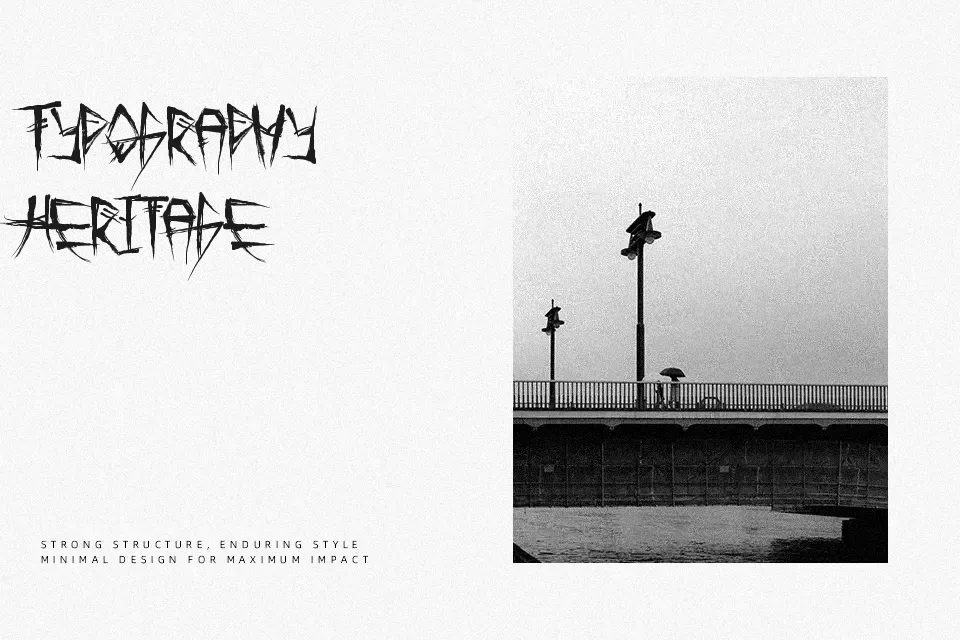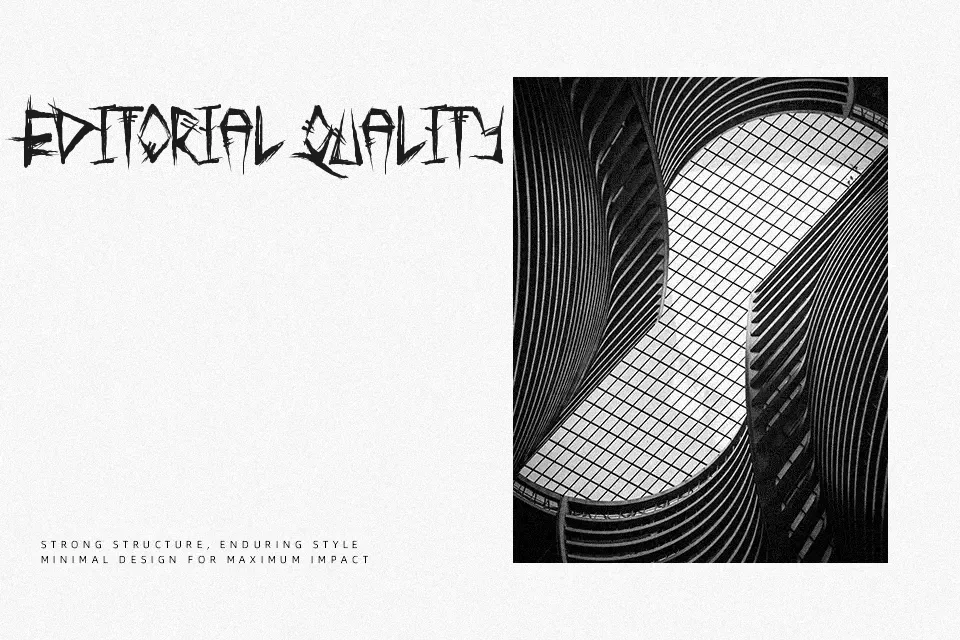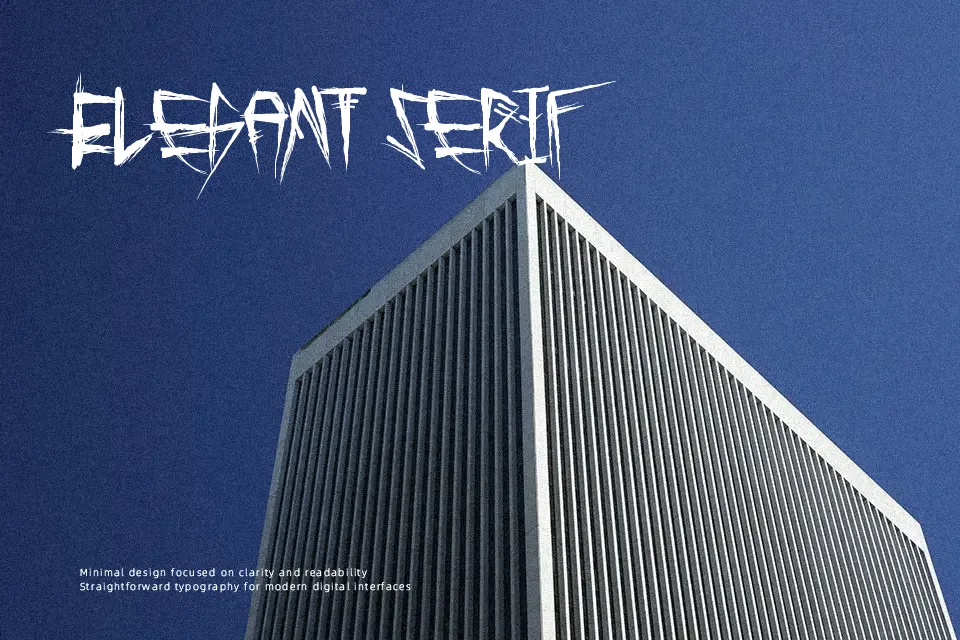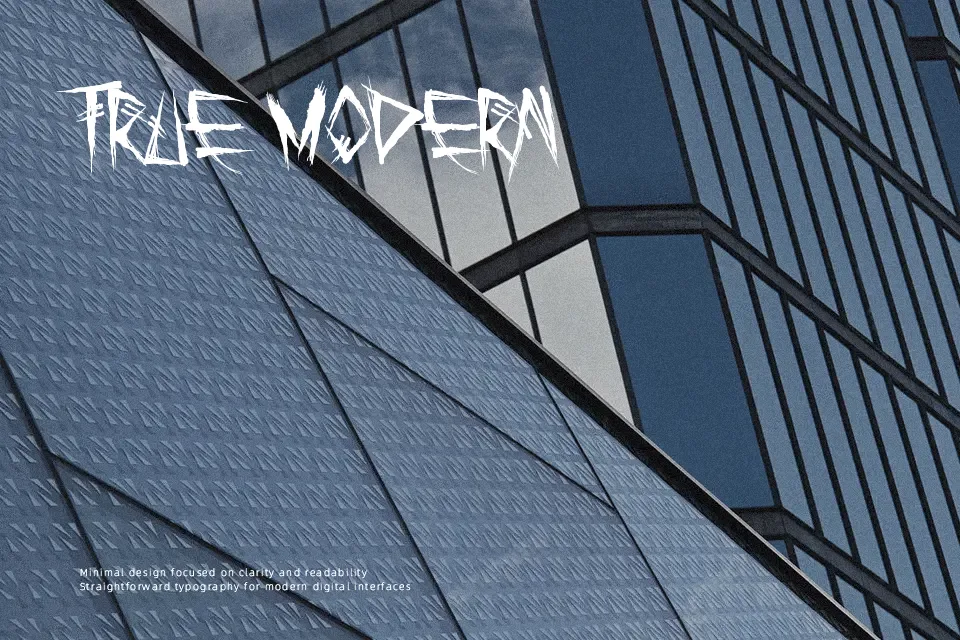
Tribal Threat Font
Tribal Threat Font commands immediate visual attention through heavily stylized glyphs shaped with barbed contours, razor-sharp terminals, and dense solid weights. The letterforms exhibit deliberate jagged silhouettes and tightly spaced construction, producing an intense rhythmic texture across uppercase sequences. While these exaggerated proportions maximize dramatic impact at large scale, the intricate outer spikes noticeably degrade readability when reduced. Consequently, this typeface performs best on horror film posters, aggressive apparel graphics, and music merchandise headlines. Extended editorial layouts remain impractical due to severe stroke crowding, confirming that the design functions strictly as a focused display asset.
Best For: horror movie posters, heavy metal album covers, apparel graphics, esports team logos
Not Ideal For: long paragraph text, dense editorial layouts, small interface captions, mobile app body copy
Perfect for film, headline, and logo, with a dark and decorative style.